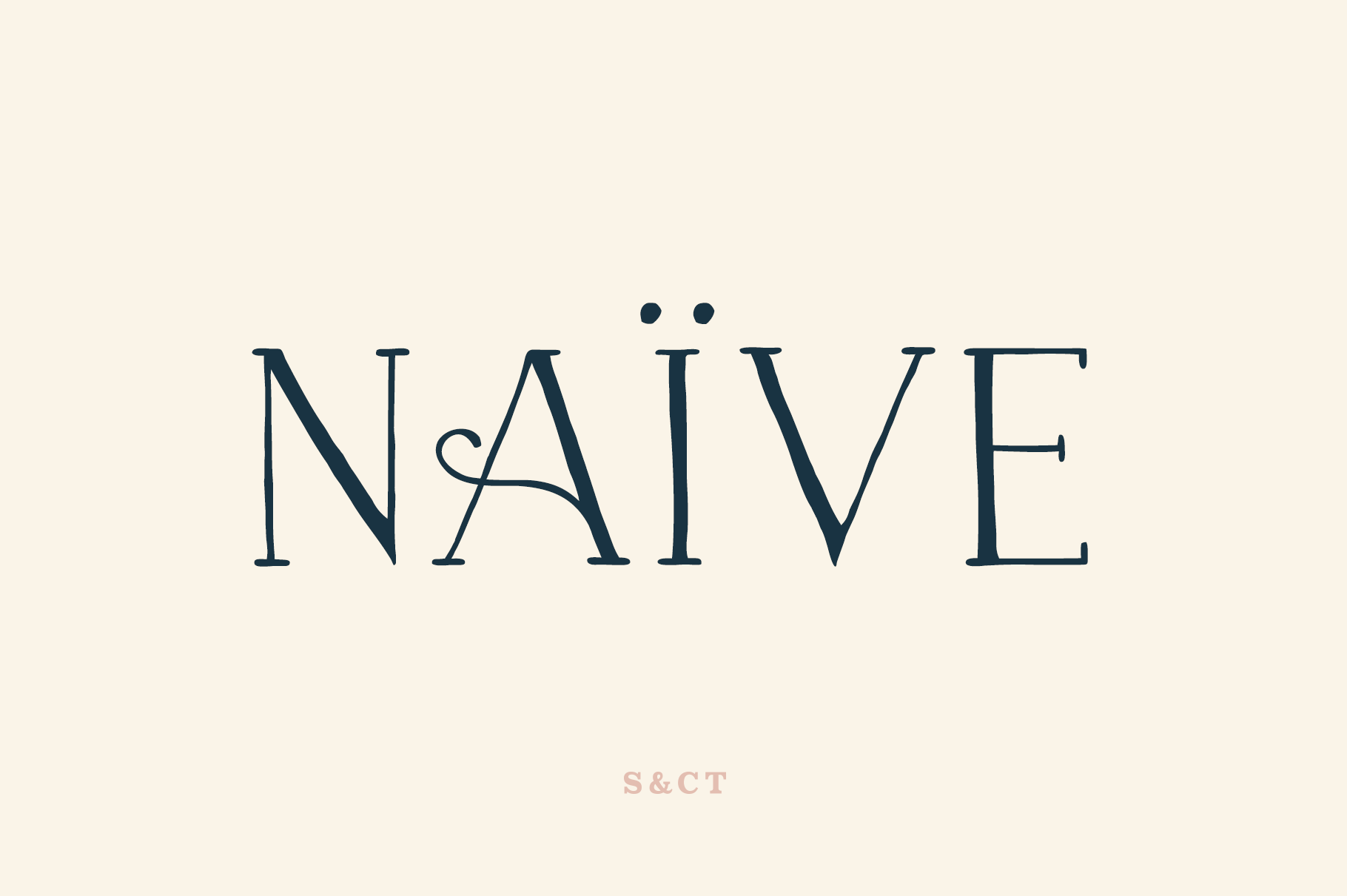
Naive Font Collection (6 fonts)
Naïve is a serif handwritten font designed by Fanny Coulez and Julien Saurin in Paris. Our goal was to draw a font with finely irregular lines that give a human and whimsical feeling.
The three weights of this subtle Parisian hand-drawn font can be enhanced with two alternates fancy glyphs for each letter, the “Fantaisies”, to improve your designs and bring a more poetic and unusual feeling.
This font is part of our Naïve superfamily that contains lot of variations: Line, Inline, Serif, Sans Serif, and a special Art Deco one. Just click on our foundry name to see them all!